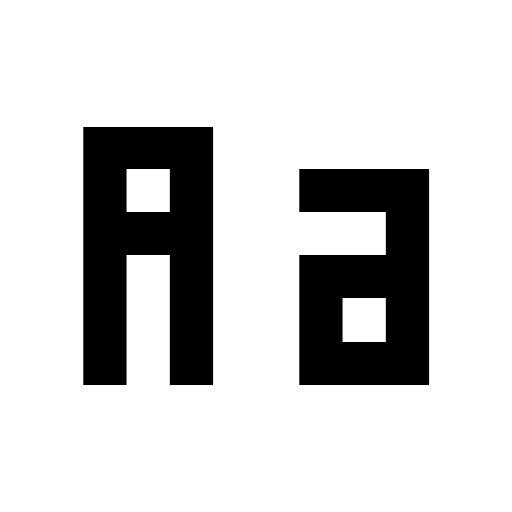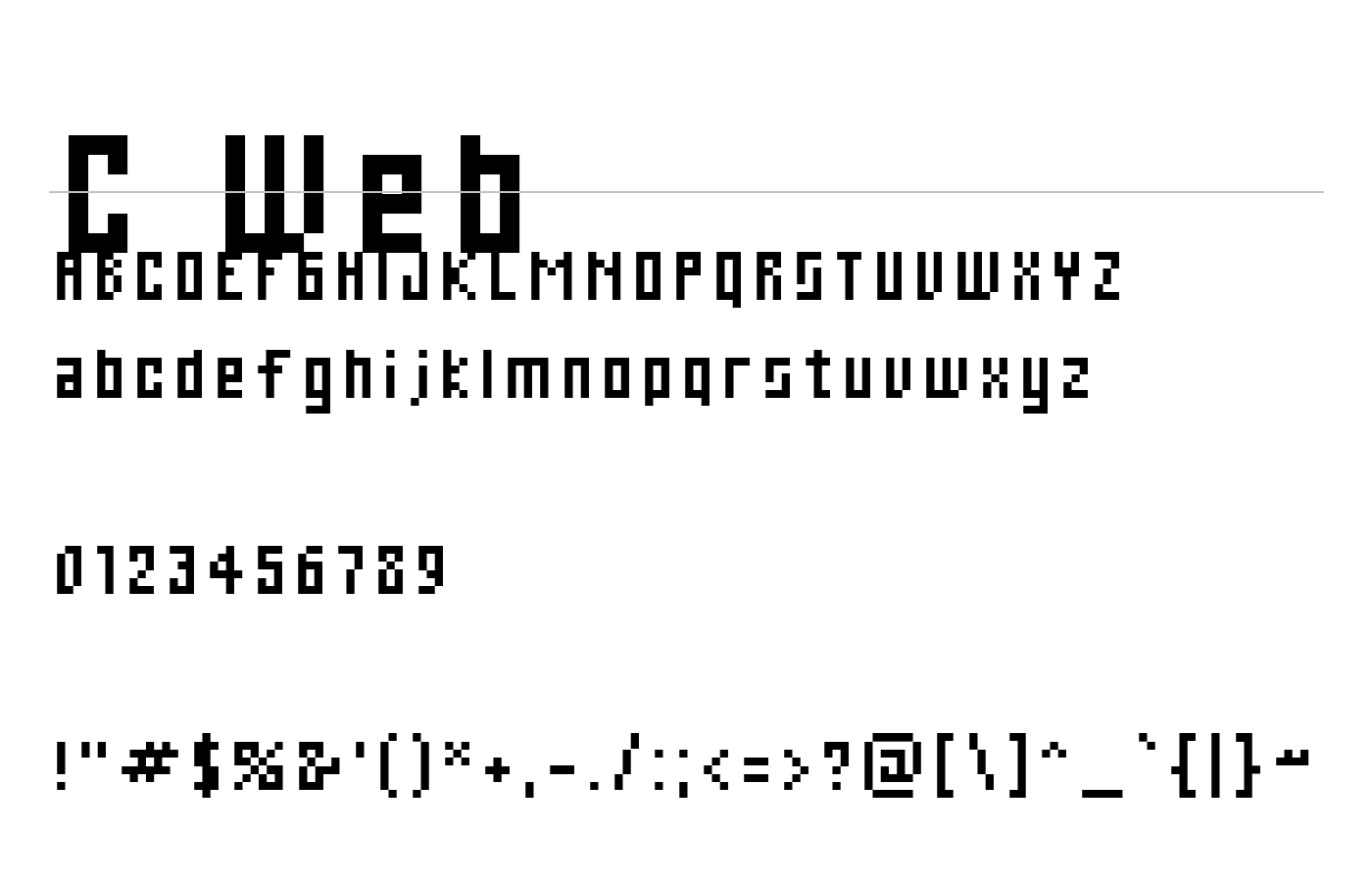
C Web Font is a condensed, monospaced sans serif typeface with a distinctly pixelated, geometric style, reminiscent of early digital or arcade typography. Its rigid, blocky letterforms and consistent stroke weight make it perfect for retro tech designs, coding environments, or projects wanting to evoke a nostalgic, digital vibe. This font works well for headlines, logos, and digital interfaces where a bold, futuristic aesthetic is desired.
C Web Font
About C Web Font